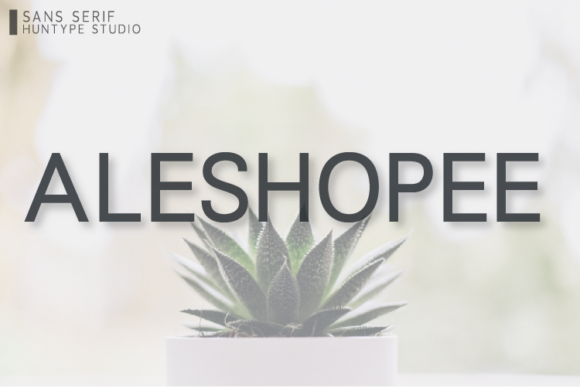
Introducing Aleshopee, the font that speaks to your artistic soul. Its simple, neat lettered sans serif structure is a canvas for your creativity, inviting you to paint your designs with precision and flair. Whether you're crafting eye-catching T-shirt designs, branding your business with a touch of elegance, or adding a personal touch to your invitations, Aleshopee is your trusted companion.
Aleshopee's versatility knows no bounds. Its clean and refined appearance makes it the perfect choice for formal settings, demanding attention with its crisp lines and understated sophistication. Yet, it effortlessly transitions into the realm of casual designs, adding a hint of playfulness and charm.
Step into the world of Aleshopee and discover a font that embraces individuality and expression. Let your imagination soar as you create designs that resonate with your unique style. Its seamless adaptability will keep you captivated, whether you're designing for print or digital media.
Aleshopee is more than just a font; it's a gateway to a world of creative possibilities. Its versatility and effortless elegance will transform your designs into masterpieces. Experience the Aleshopee difference today and unlock the full potential of your creativity.